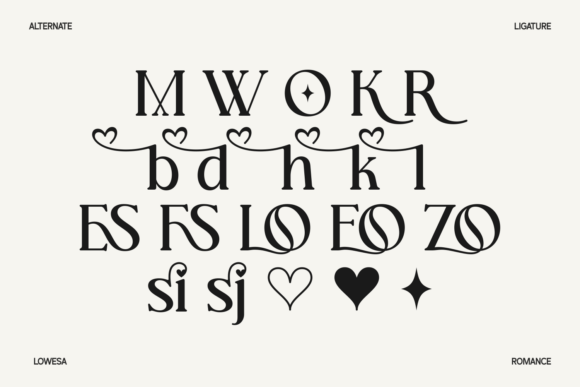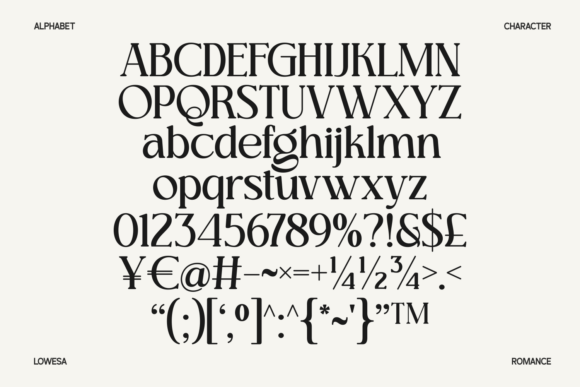
Introduction to Lowesa Romance Font
Have you ever been in a design rut, staring at a blank canvas with a project deadline looming? For many creatives, this is a familiar feeling, but what if you could find the perfect font to elevate your work and bring it to life? This is where Lowesa Romance Font comes in – an elegant modern serif typeface designed to add timeless charm and sophistication to your creative projects.
Whether you’re a seasoned designer or just starting out, finding the right font can be a game-changer. With Lowesa Romance Font, you’ll have access to a high-quality design resource that’s perfect for a wide range of creative projects, from branding and logos to fashion editorials and wedding invitations.
Key Features of Lowesa Romance Font
- High-quality design resource ideal for creative projects, offering a touch of elegance and sophistication.
- Includes a range of font styles and weights, providing flexibility for designers to achieve the desired aesthetic.
- Unique characteristics include swashes, flourishes, and ornate details, making it a standout choice for designers seeking a distinctive look.
Honest Review: Lowesa Romance Font
I recently stumbled upon the Lowesa Romance Font, and I must say, it’s a lovely addition to any designer’s toolkit. As a design resource, it’s a high-quality font that can elevate any creative project.
What works well about the Lowesa Romance Font is its elegant and sophisticated feel. The font is perfect for romantic-themed designs, weddings, and even Valentine’s Day projects. The characters are well-designed, and the font is highly legible.
Some of the key features of the Lowesa Romance Font include:
- Elegant and sophisticated feel
- Perfect for romantic-themed designs
- Highly legible characters
Overall, I think the Lowesa Romance Font is a great resource for designers looking to add a touch of elegance to their creative projects. While it may have some limitations, it’s a high-quality font that’s definitely worth checking out.
The Lowesa Romance Font is a high-quality, free download design resource ideal for creative projects. Its unique style and transparent background make it a versatile choice for various applications.
The Lowesa Romance Font is ideal for:
Valentine’s Day and romantic-themed designs
Personalized gifts and cards